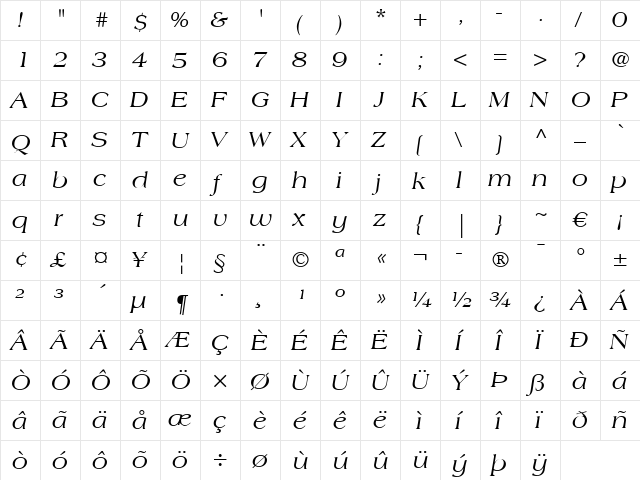
Americana LT Italic Font Preview
Design Context for Americana LT Typeface
Americana LT is a composed and adaptable typeface that performs quietly and consistently across a wide range of design contexts. The dynamic lean of this cut emphasises speed and emphasis in any layout. Its slender proportions lend an understated elegance to any composition.
Pro Tip: Try Americana LT for annotation and caption copy alongside an upright companion — the contrast in angle creates a dynamic but ordered typographic system.